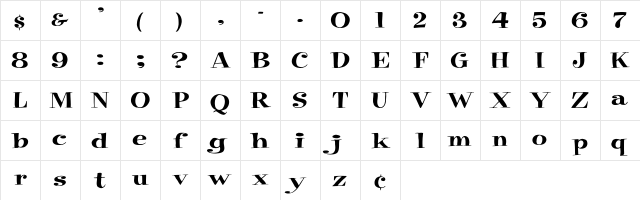
PixieFont Wd Regular
Design Context for PixieFont Wd Typeface
PixieFont Wd offers clean, dependable letterforms without strong stylistic allegiance, making it a practical choice for designers who need flexibility.
Pro Tip: Use PixieFont Wd in both headline and body roles to test its range before committing to a single application.